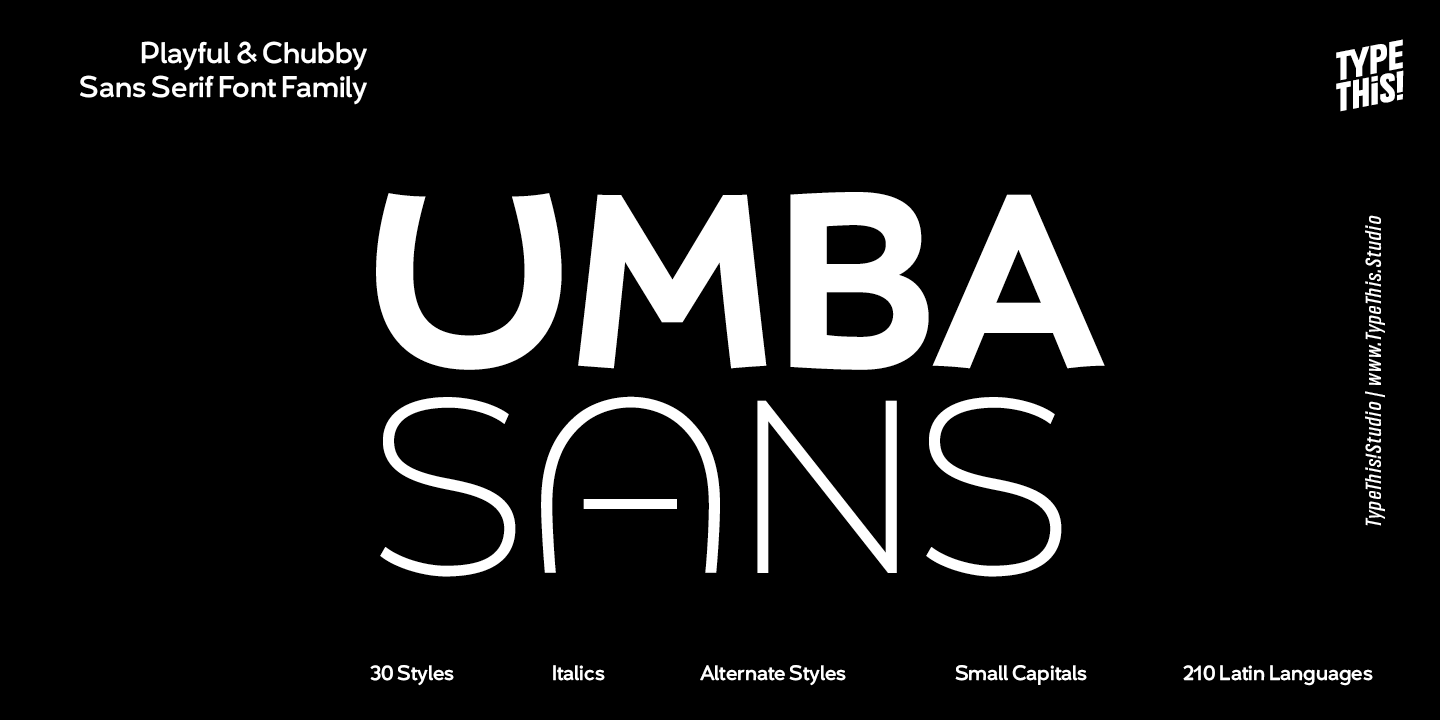
Umba Sans Alt Collection (10 fonts)
From Anita Jürgeleit / TypeThis! Studio
Umba Sans fulfills your corporate identity needs as well as your editorial demands. 30 styles from thin to bold and matching italics help you create a contemporary design. Separate styles for alternate and small caps styles will show up in your font menu, making sure that you stay aware of the wide range of possibilities your new favourite typeface provides.
Provided features: fractions, subscript, superscript, old style figures, tabulator figures, stylistic alternates, standard ff-ligatures.
Now I'm publishing my typefaces independently. The new fonts I create are of high quality in design and technique. My latest type family Umba Sans contains 30 styles (5 weights, italics, alternates, and small caps).